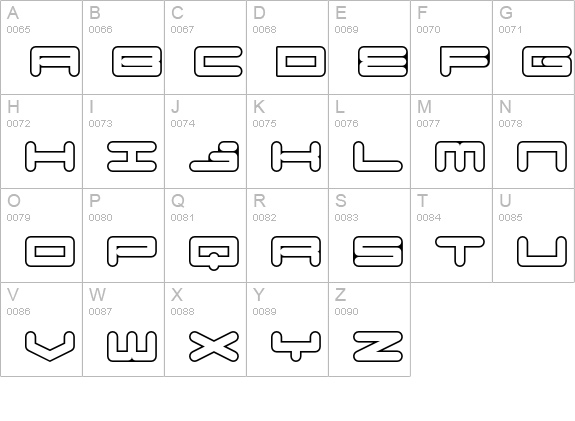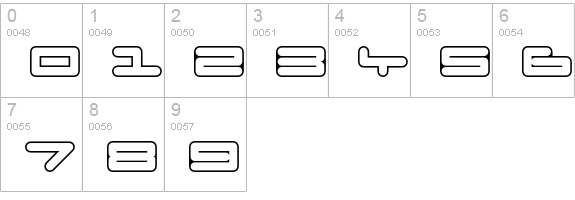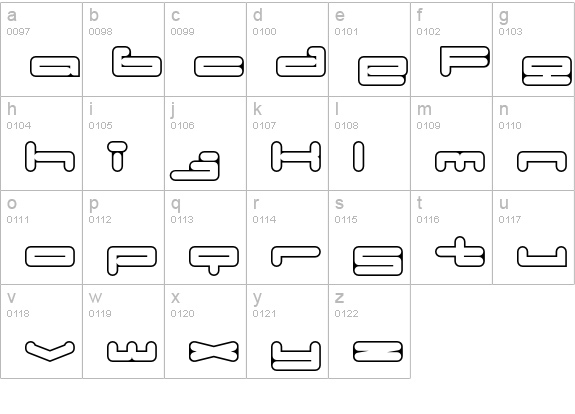
BadExcuse Font Details
Introducing BadExcuse font, a bold and distinctive typeface that exudes creativity and personality. With its unique design and edgy aesthetic, BadExcuse font is perfect for making a statement in your projects. Whether you're looking to add a touch of rebellious charm or a hint of attitude, this font has got you covered. What sets BadExcuse font apart is its versatility and ability to stand out in any design context. From posters to branding, social media graphics to merchandise, this font will elevate your creations to the next level. Its bold strokes and quirky details make it a standout choice for those looking to break away from the ordinary. And the best part? BadExcuse font is available for free download at FontsMarket.com. So go ahead, unleash your creativity and give your projects a unique and unforgettable touch with BadExcuse font. Download it now and let your imagination run wild!